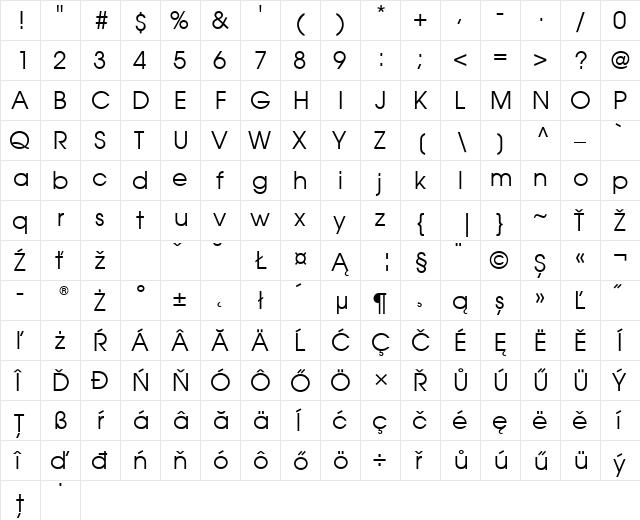
Avant Garde CE Book
Design Context for Avant Garde CE Typeface
Avant Garde CE is a composed and adaptable typeface that performs quietly and consistently across a wide range of design contexts.